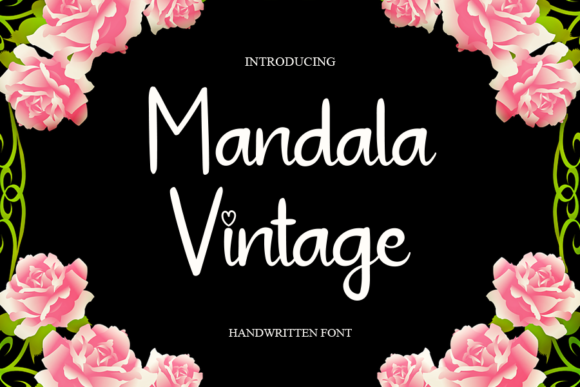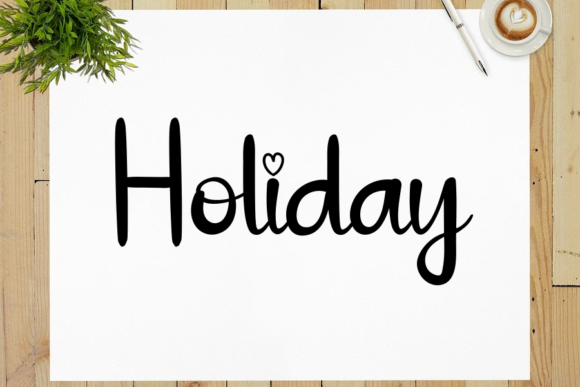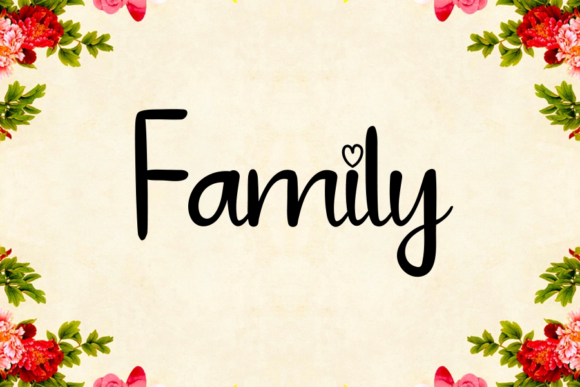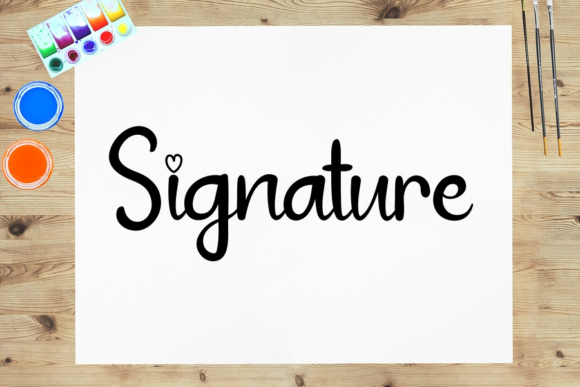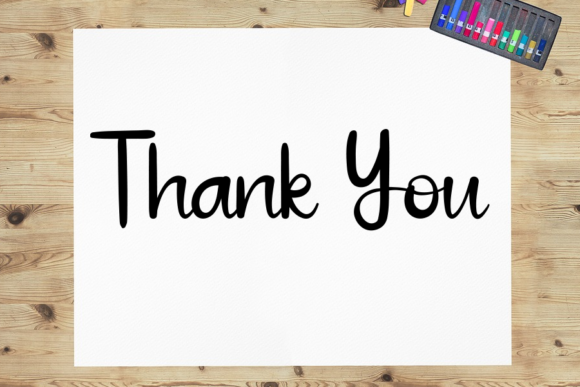
Mandala Vintage Font
About Mandala Vintage Font
Mandala Vintage is a fun, chic and playful handwritten font. Add it to each of your party invitation, gathering or pretty much any design that requires a touch of youth and joy.